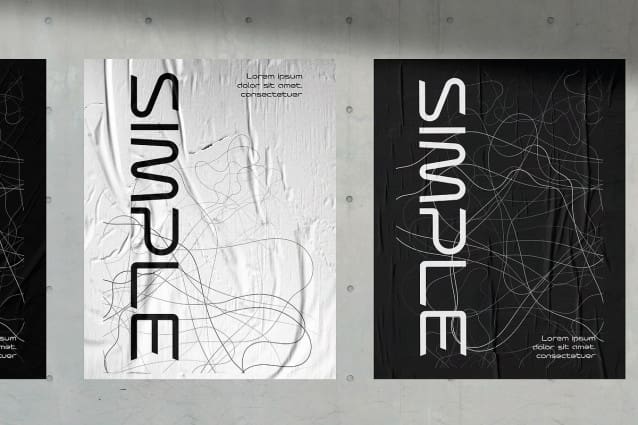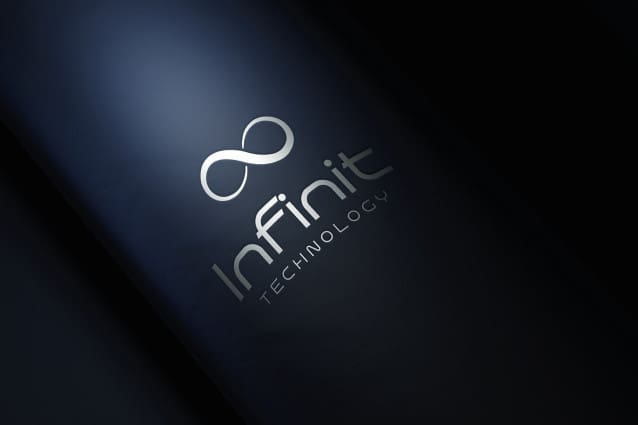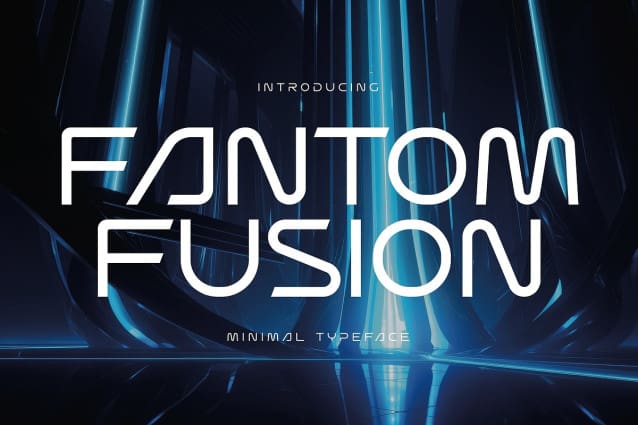
Fantom Fusion Font
Fantom Fusion Font emerges as a groundbreaking addition to the typographic landscape, encapsulating a vision of the future in its very form. This typeface is an amalgamation of clean aesthetics and futuristic minimalism, creating a visual harmony that’s both striking and soothing to the eye. With its sleek and uncluttered design, Fantom Fusion goes beyond mere letters on a page – it’s an embodiment of innovation and modernity, designed for the digital age and beyond.
Each character in Fantom Fusion is crafted with a meticulous eye for detail, resulting in a typeface that balances artistic beauty with functional clarity. The minimalist approach strips away the superfluous, leaving only the essence of each letter, a testament to the beauty of simplicity. This clean and refined style makes Fantom Fusion not just a typeface, but a statement piece, perfect for brands and designs that aim to stand out with a contemporary and forward-thinking edge.
Fantom Fusion is more than just visually appealing; it’s a functional masterpiece that ensures readability and versatility across various mediums. Whether it’s gracing the digital screens of cutting-edge technology or adorning the print of high-end publications, Fantom Fusion maintains its crisp, clear quality. It’s a typeface that doesn’t just speak to the present; it whispers of the future, making it an essential tool for designers who dare to dream and create with the next generation in mind.